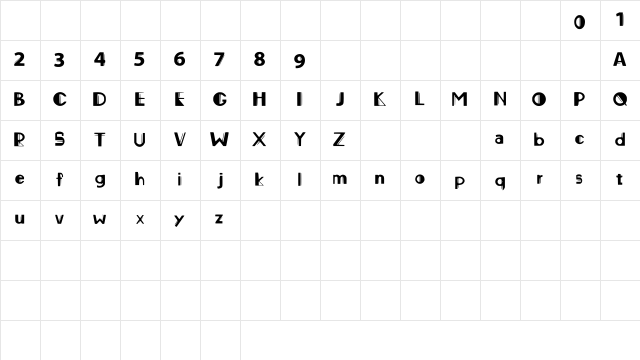
original_font Medium
Design Context for original_font Typeface
original_font is a composed and adaptable typeface that performs quietly and consistently across a wide range of design contexts.